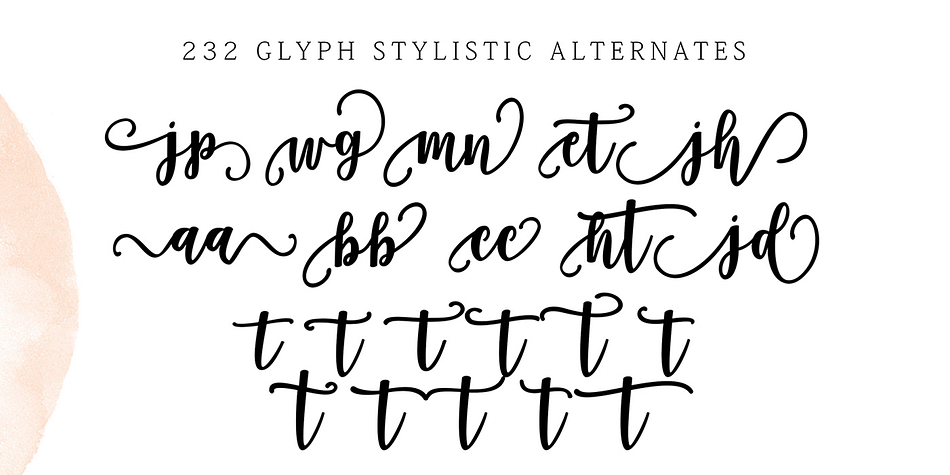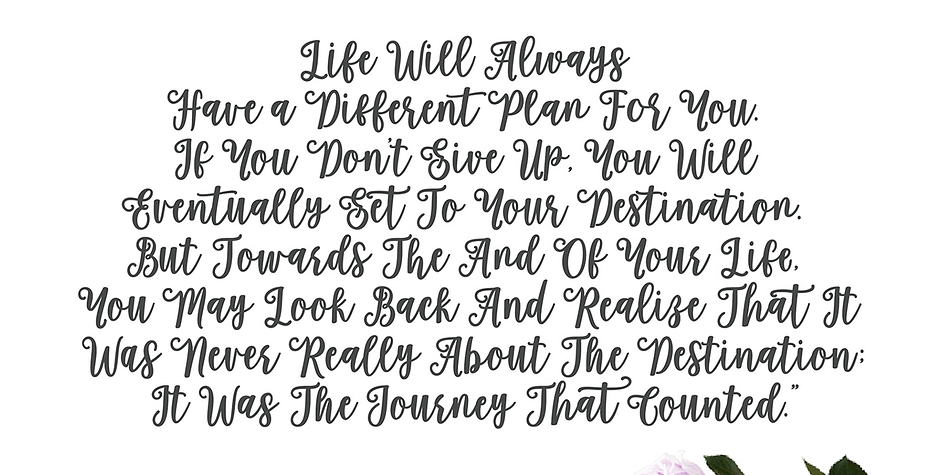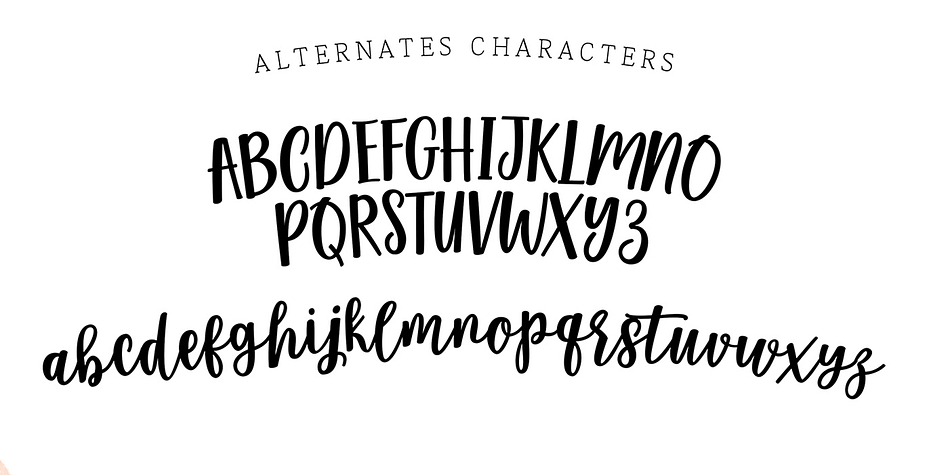
Holliston Script
Holliston Script is a script and modern calligraphy font published by Genesislab.
Holliston Script is a creative calligraphy font.
It is charming and fits right in with the current calligraphy cont tends.
It works great to create wedding invitations, signatures, letterheads, logos, T-shirts, and everything in between.
Holliston Script includes many OpenType features.
You can mix and match styles to create the perfect design.
The font includes 573 glyphs and will make it easy to design the most amazing designs.
Alternative Open features are divided into Swash, Stylistic Sets, Stylistic Substitute, Substitute Contextual, and ligatures.
Holliston Script is a creative calligraphy font. It is charming and fits right in with the current calligraphy cont tends. Buy this font to add this sweet font to your toolbox. It works great to create wedding invitations, signatures, letterheads, logos, T-shirts, and everything in between.
Holliston Script includes many OpenType features. You can mix and match styles to create the perfect design.
The font includes 573 glyphs and will make it easy to design the most amazing designs. Alternative Open features are divided into Swash, Stylistic Sets, Stylistic Substitute, Substitute Contextual, and ligatures.